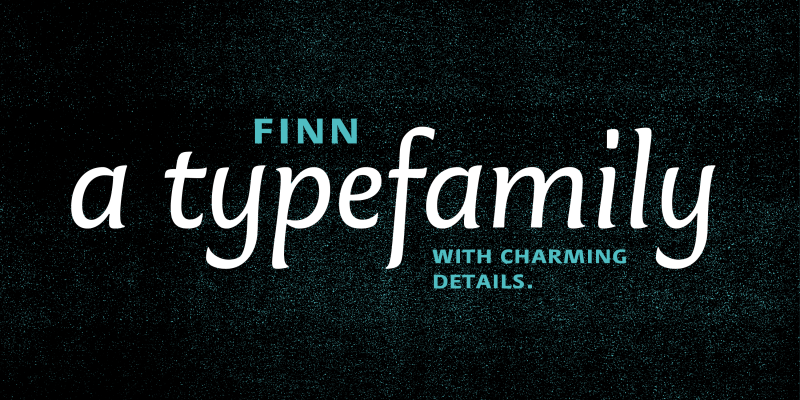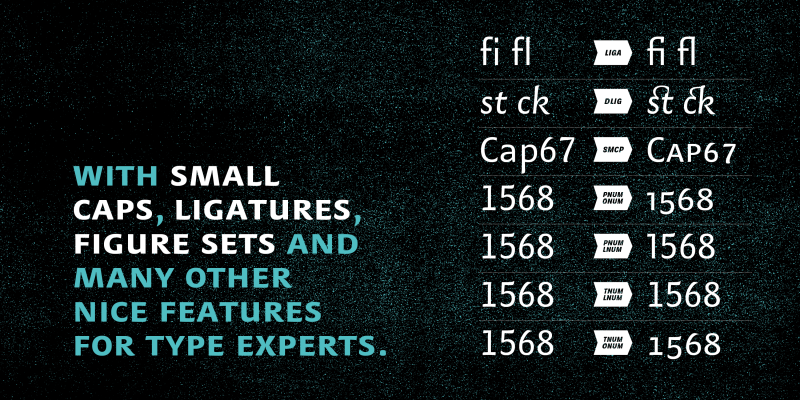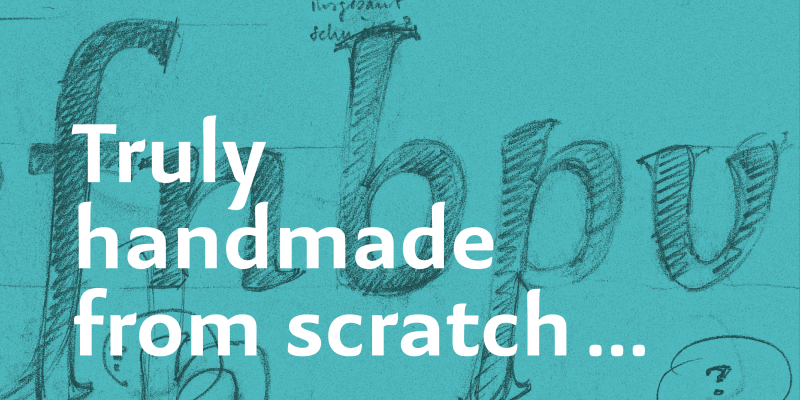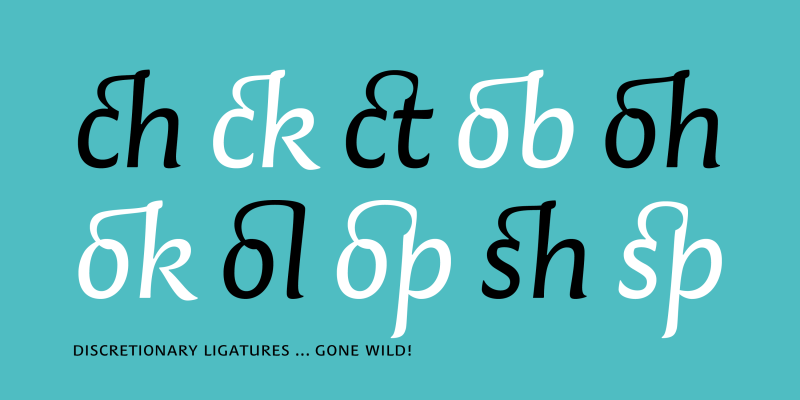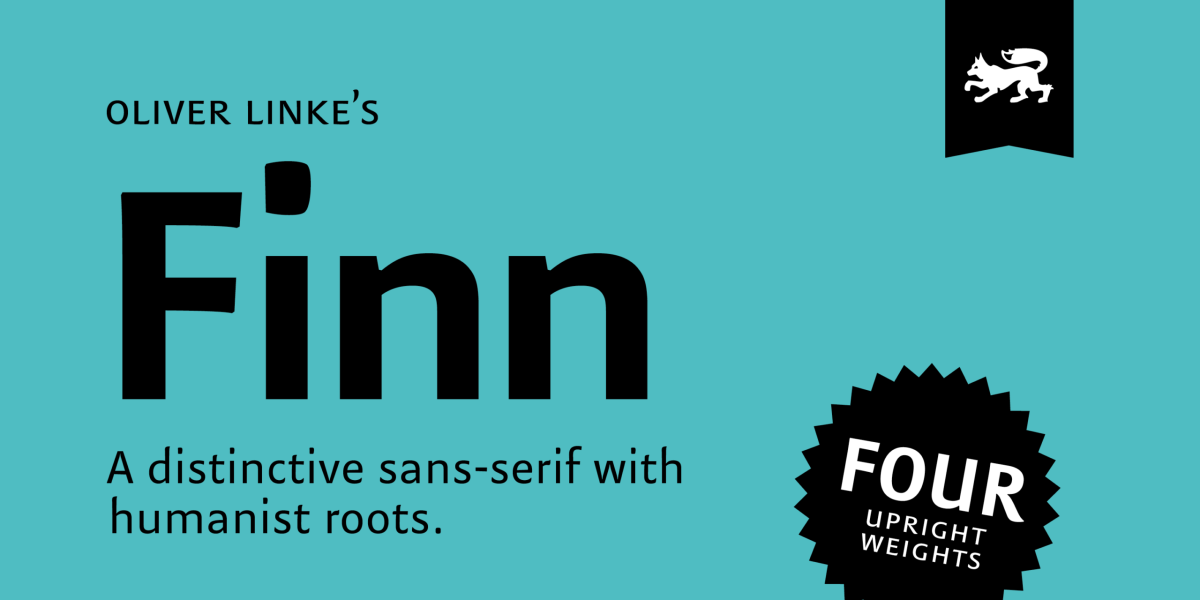
Finn Font Family
Finn Family has been carefully designed as a body typeface by Oliver Linke and especially tailored to increase readability of large amounts of text. Particularly spacing…
Finn Family has been carefully designed as a body typeface by Oliver Linke and especially tailored to increase readability of large amounts of text. Particularly spacing and kerning played an important role in the design process. Although a text typeface requires rather ordinary letterforms, Finn was furnished with charming details, that produce its distinctive warm and human appearance, without disturbing the process of reading. This makes it suitable for various typographic fields in contemporary graphic design. Finn Family is a bundle of four upright weights with one regular Italic. All fonts provide additional glyphs like discretionary ligatures, various figure sets, currency symbols and alternates. This extended character set enables the use of Finn Family in many different fields of high quality typography.
Where Finn Font Family works best
Finn Font Family stays legible at small sizes, which makes it a strong choice for navigation, buttons and dashboards in web design and app interfaces.
Clean sans serifs like Finn Font Family are the default language of SaaS, fintech and product branding.